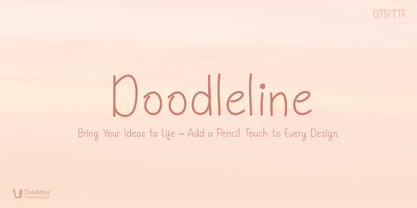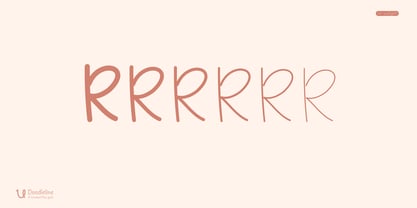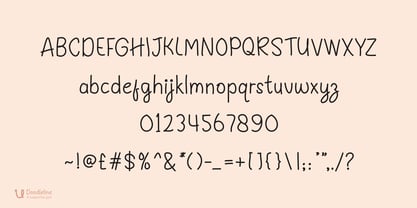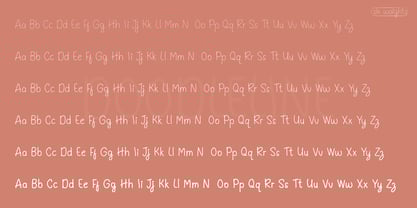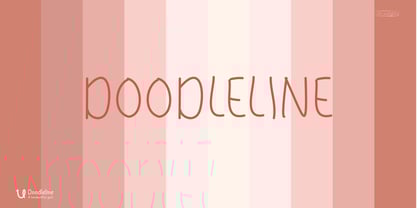
Doodleline
The Doodleline Font Family was designed by Muhammad Uzair and published by Uzairr. Doodleline contains 6 styles and family package options. More about this family
Doodleline is a unique pencil-inspired typeface created to add a handcrafted, artistic touch to your projects. This font family includes 6 versatile weights – Extra Light, Light, Regular, Medium, Bold, and Extra Bold – giving you complete flexibility for playful and aesthetic typography.
Doodleline combines the organic charm of hand-drawn sketches with the clean precision of vector graphics, making it perfect for a wide range of design applications:
Branding & Logo Design
Packaging & Labeling
Social Media Content & Aesthetic Videos
YouTube Thumbnails, Instagram Posts & Pinterest Graphics
Posters, Invitations & Stationery Design
Bring your words to life with a pencil-drawn elegance that feels creative, authentic, and visually stunning. Whether you're designing modern branding, cute illustrations, or trendy aesthetic edits, Doodleline is your perfect choice.